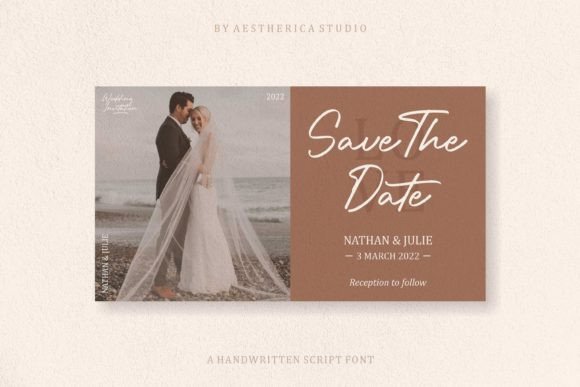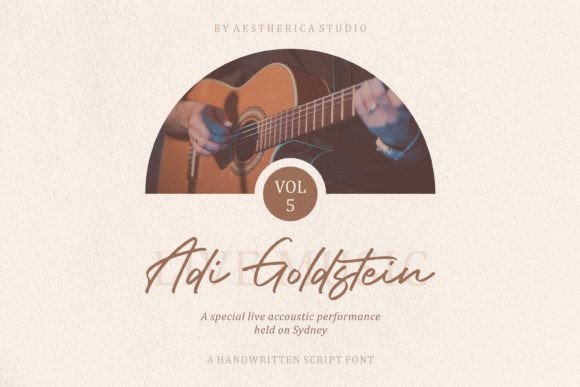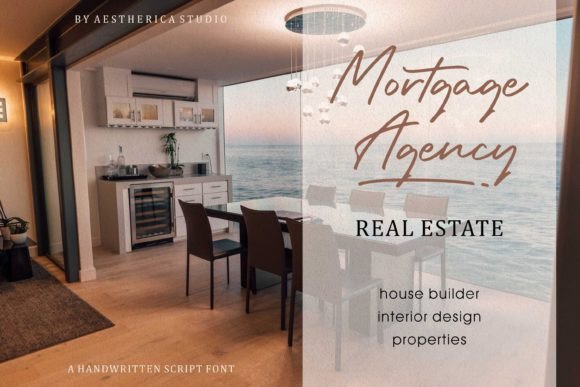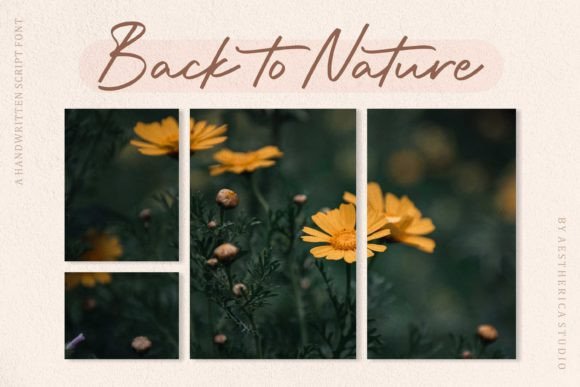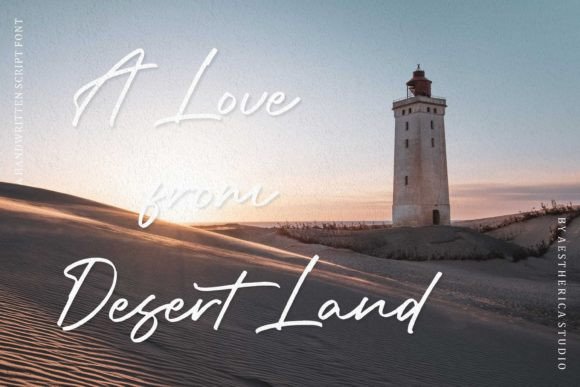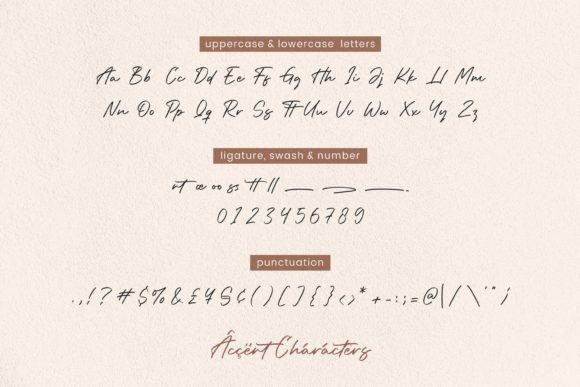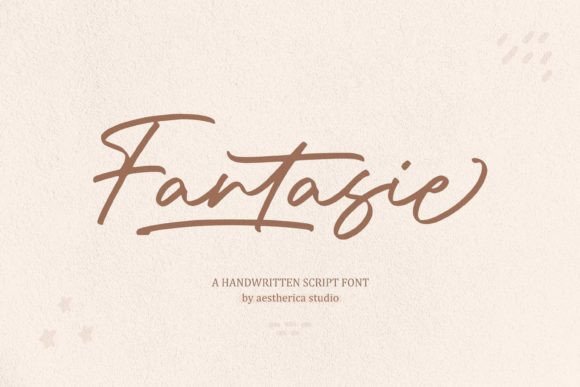
Fantasie Font: Elevate Your Design with a Touch of Elegance
In the world of typography, fonts play a crucial role in conveying the tone and personality of a brand. For designers and crafters looking to add a touch of elegance and sophistication to their projects, Fantasie Font is an excellent choice. This beautiful handwritten script font is designed to bring a natural and stylish flow to your designs, making it perfect for personal branding and a wide range of creative projects.
What is Fantasie Font?
Fantasie Font is a carefully crafted handwritten script font that exudes a sense of elegance and refinement. Its natural flow and stylish curves make it an ideal choice for designers looking to add a personal touch to their work. Whether you’re working on a branding project, logo design, wedding invitation, or social media post, Fantasie Font is sure to impress.
Key Features of Fantasie Font
• Handwritten Script: Fantasie Font boasts a beautiful handwritten script that adds a touch of personality to your designs.
• Natural Flow: The font’s natural flow and curves create a sense of movement and fluidity, making it perfect for designs that require a sense of dynamism.
• Stylish and Elegant: Fantasie Font is designed to bring a touch of elegance and sophistication to your designs, making it perfect for high-end branding and luxury projects.
• Versatile: This font is suitable for a wide range of projects, including branding, logos, wedding designs, social media posts, advertisements, product packaging, and more.
Fantasie Font is an excellent choice for designers and crafters looking to add a personal touch to their projects. Whether you’re working on a personal branding project or a client’s design brief, this font is sure to impress. Its versatility and elegance make it perfect for:
• Branding Projects: Use Fantasie Font to create a cohesive brand identity that exudes elegance and sophistication.
• Logos: Create a stunning logo that showcases your brand’s personality and style.
• Wedding Designs: Add a touch of romance and elegance to your wedding designs, including invitations, stationery, and more.
• Social Media Posts: Elevate your social media posts with a touch of elegance and sophistication.
• Advertisements: Use Fantasie Font to create eye-catching advertisements that grab attention.
• Product Packaging: Add a touch of luxury to your product packaging with this beautiful font.
• Label and Photography: Use Fantasie Font to create stunning labels and watermarks for your photography projects.
• Stationery: Create beautiful stationery, including invitations, business cards, and more.
Why Choose Fantasie Font?
With so many fonts available, why choose Fantasie Font? Here are just a few reasons:
• Unique and Elegant: Fantasie Font is a unique and elegant font that will set your designs apart from the rest.
• High-Quality: This font is designed to deliver high-quality results, with clear and crisp lines that look stunning in any design.
• Versatile: This font is suitable for a wide range of projects, making it a great addition to any designer’s toolkit.
In conclusion, Fantasie Font is a beautiful handwritten script font that is perfect for designers and crafters looking to add a touch of elegance and sophistication to their projects. With its natural flow, stylish curves, and versatility, this font is sure to become a favorite in your design toolkit. Whether you’re working on a branding project, logo design, wedding invitation, or social media post, Fantasie Font is an excellent choice.